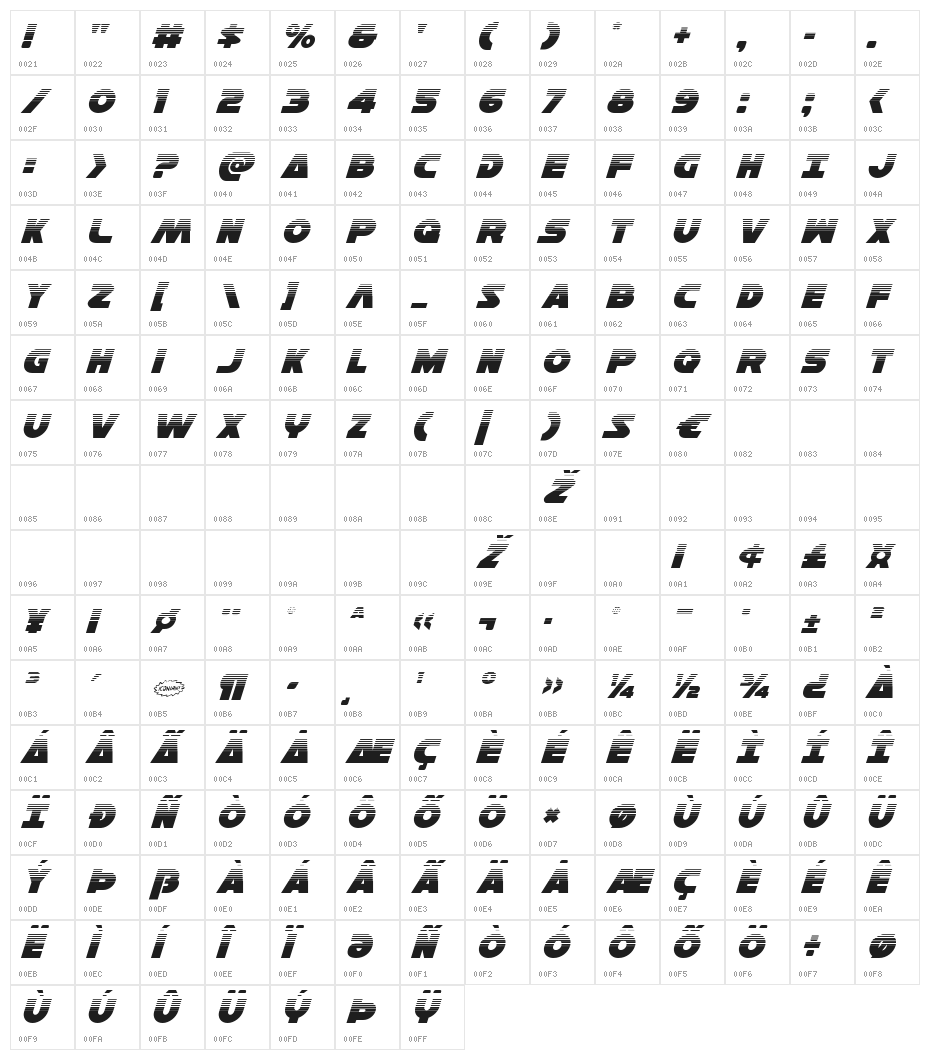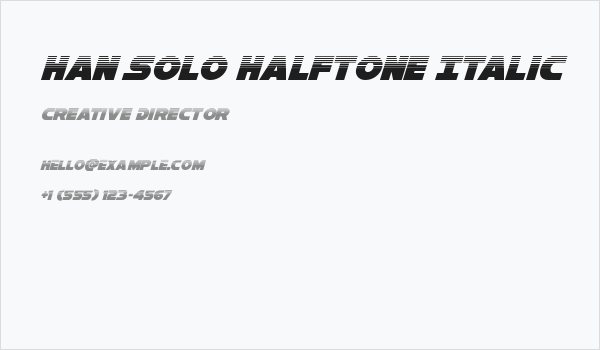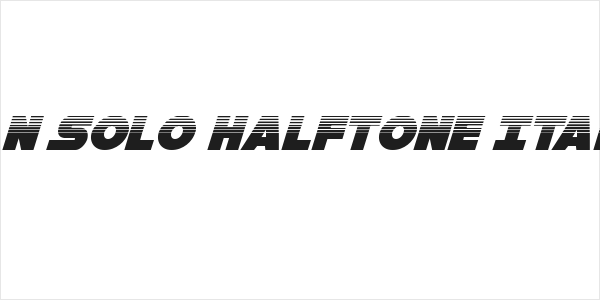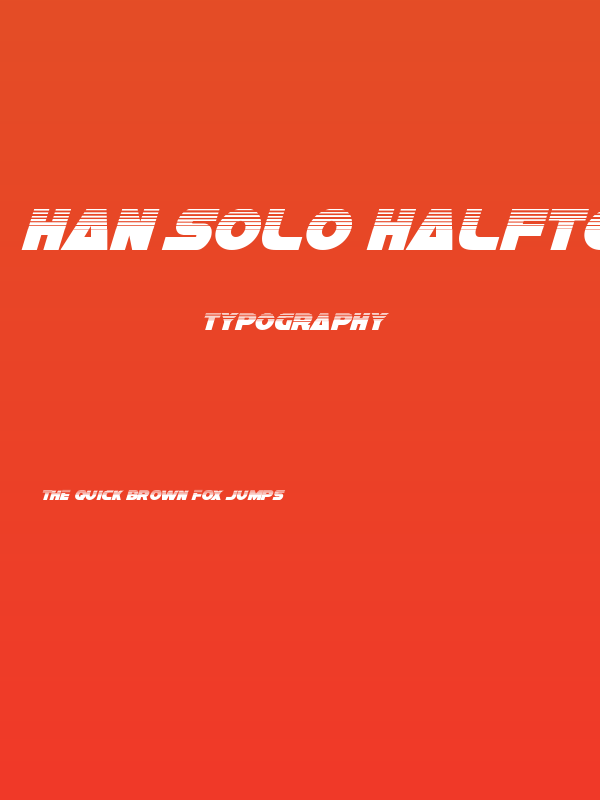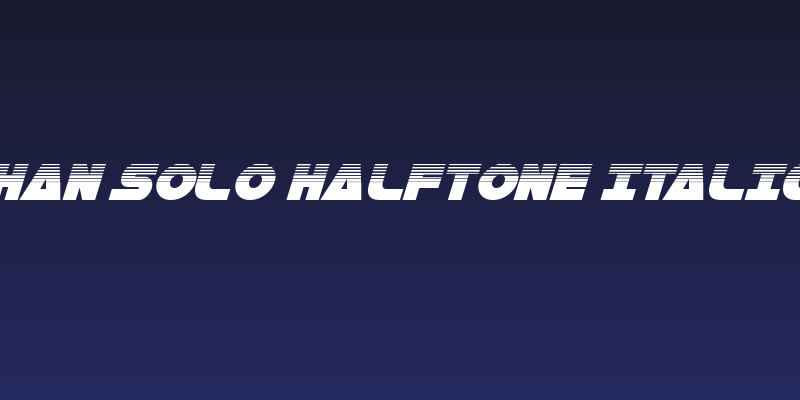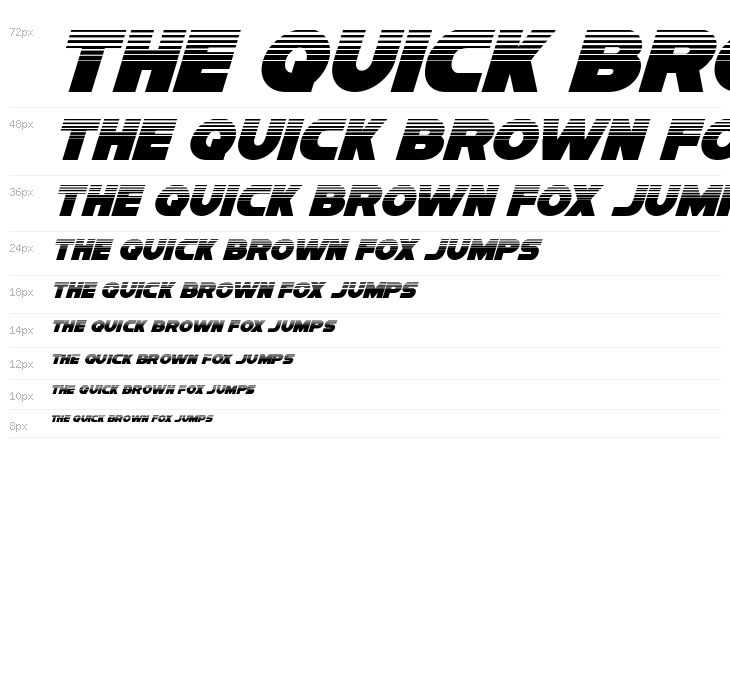
Han Solo Halftone Italic Font
Han Solo Halftone Italic Description
This font features a bold and dynamic design with a distinct halftone effect that gives it a futuristic and energetic appearance. The italicized style adds a sense of motion and speed, making it ideal for projects that require a modern and edgy look. The characters are wide and have a strong presence, with a unique pattern of horizontal lines that create a sense of depth and texture. The font is highly stylized, making it suitable for attention-grabbing headlines, posters, and branding materials where a bold statement is needed. Its geometric shapes and sharp angles contribute to its contemporary aesthetic, while the halftone effect adds a layer of visual interest that sets it apart from more traditional fonts.
| Proposed Projects | Ideal for futuristic branding, sports team logos, dynamic posters, and sci-fi themed designs. |